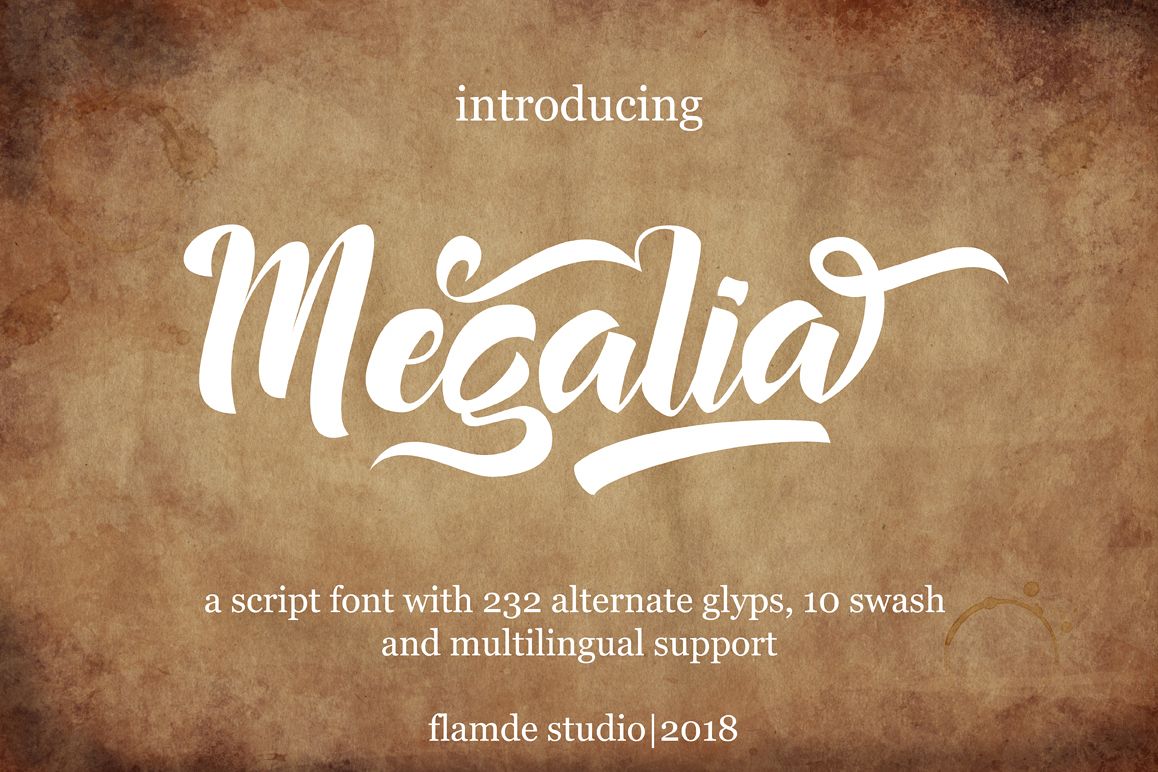
Megalia - Script Font
Megalia
Introduce, this is our latest product, we name it This product is Megalia.
The Megalia is a beautiful hand lettering font. It has an elegant yet striking look, which makes it perfect for a wide range of designs.
- Multilingual support - spread your message globally AÀÁÂÃÄÅCÇDÐEÈÉÊËIÌÍÎÏNÑOØÒÓÔÕÖUÙÜÚÛWYÝŸ?ŸÆŒßÞþ